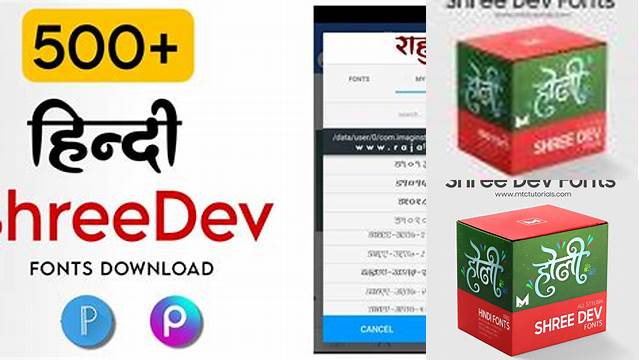
Shree Dev Fonts: Free Download For Creative Projects
Hey guys! Are you looking to spice up your design projects with some awesome fonts? Well, you've come to the right place! In this article, we're diving deep into the world of Shree Dev fonts and how you can snag them for free. Get ready to explore a treasure trove of typography that will elevate your creative game. Let’s get started!
1. What are Shree Dev Fonts?
So, what exactly are Shree Dev fonts? These are a collection of fonts primarily designed for Indian languages, especially Devanagari scripts like Hindi, Marathi, and Sanskrit. Known for their elegant and traditional designs, Shree Dev fonts are perfect for a wide range of projects, from religious texts to festive invitations. The intricate detailing and readability make them a popular choice among designers. Using Shree Dev fonts adds a touch of authenticity and cultural richness to your work, ensuring your message resonates with the target audience. Plus, many of these fonts are available for free, making them an accessible option for both professional and amateur designers. With Shree Dev fonts, you can effortlessly blend tradition with modernity, creating visually stunning and meaningful designs.
2. Why Use Shree Dev Fonts?
Why should you even bother using Shree Dev fonts, you ask? Well, they offer a unique aesthetic that can't be replicated by standard fonts. These fonts carry a cultural weight, making them ideal for projects that aim to connect with Indian audiences or celebrate Indian culture. Imagine designing a wedding invitation or a Diwali poster—using a Shree Dev font instantly adds an authentic and festive touch. Beyond aesthetics, these fonts are designed with readability in mind, ensuring that your message is clear and easily understood. They also provide a professional look and feel, setting your designs apart from the crowd. So, if you’re looking to infuse your projects with cultural significance, readability, and a touch of elegance, Shree Dev fonts are the way to go. Trust me, your designs will thank you!
4. Shree Dev 0708 Font Free Download
Let's zoom in on a specific favorite: the Shree Dev 0708 font. This particular font is a popular choice due to its clean lines and excellent readability. It's versatile enough to be used in a variety of projects, from print materials to digital designs. Finding a free download of Shree Dev 0708 is relatively easy, but again, make sure you're downloading from a reputable source to avoid any nasty surprises. Many font websites offer this font as a free download, often with options for different weights and styles. Once you've downloaded it, you can easily install it on your computer and start using it in your favorite design software. The Shree Dev 0708 font is a fantastic addition to any designer's toolkit, offering a blend of tradition and modernity that's hard to resist.
30. Shree Dev Fonts and Cultural Significance
Shree Dev fonts carry significant cultural weight, representing the rich linguistic heritage of India. These fonts are often used in religious texts, traditional ceremonies, and cultural events. Using Shree Dev fonts in your designs can add a touch of authenticity and cultural richness. By understanding the cultural significance of Shree Dev fonts, you can use them respectfully and effectively in your projects. Embrace the cultural heritage of India by incorporating Shree Dev fonts into your designs.